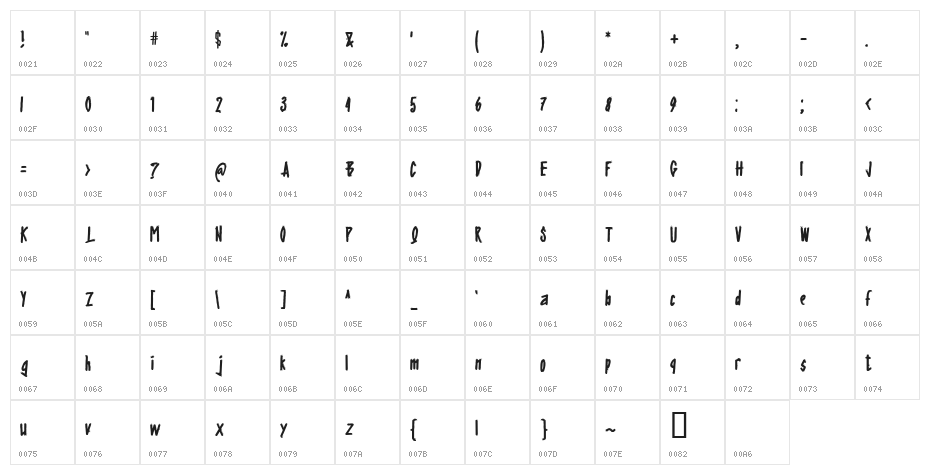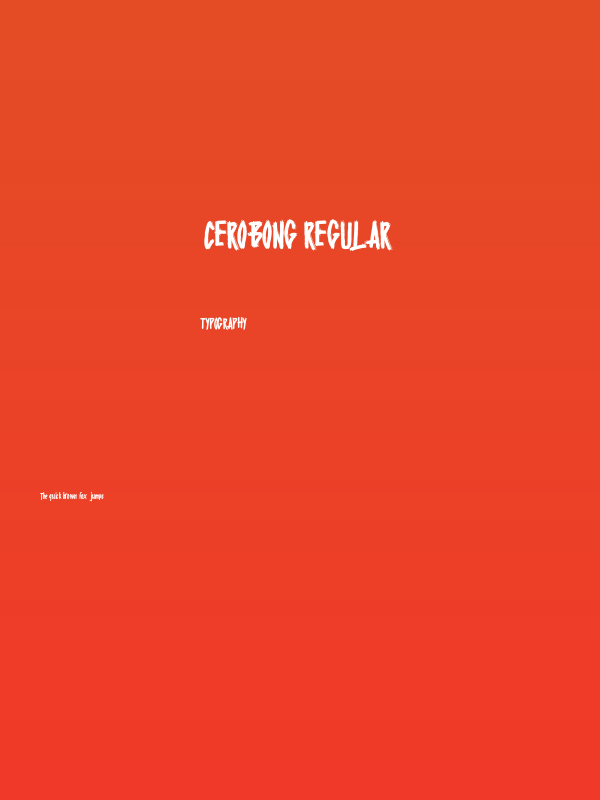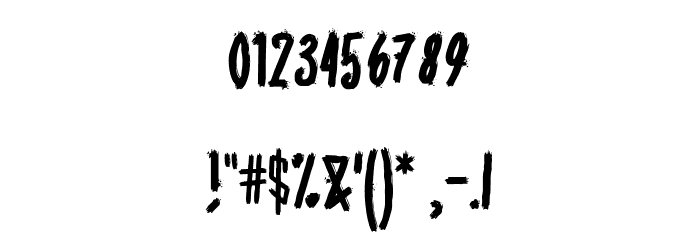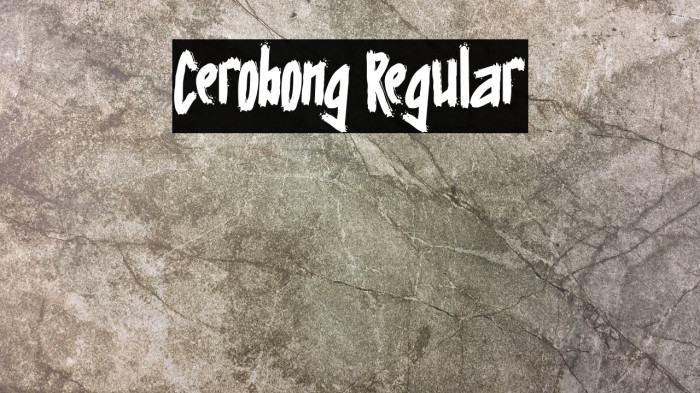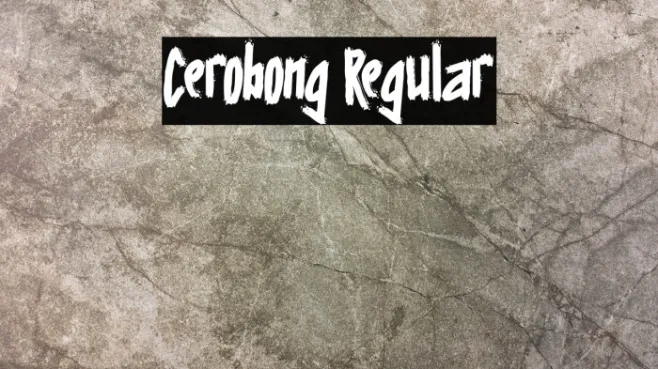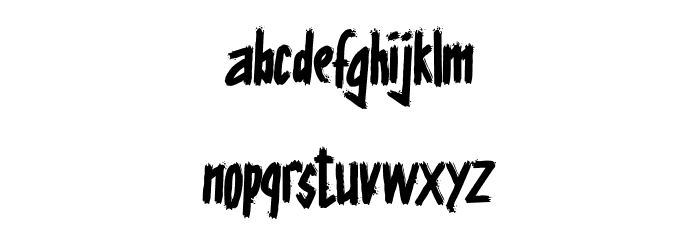
Cerobong Regular Font
Cerobong Regular Description
This font features a bold and dynamic brushstroke style, characterized by its rough and textured appearance. The uppercase and lowercase letters exhibit a sense of movement and energy, with irregular edges that give it a hand-painted look. The numerals and special characters maintain this artistic flair, making the font suitable for projects that require a strong visual impact. Its unique style is both eye-catching and expressive, ideal for creative and artistic applications.
| Proposed Projects | Ideal for posters, album covers, branding projects, and any design requiring a bold, artistic touch. |